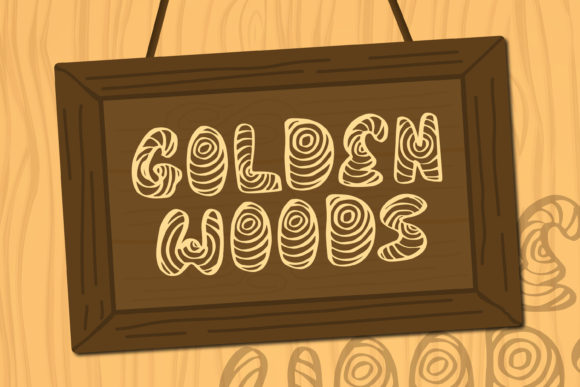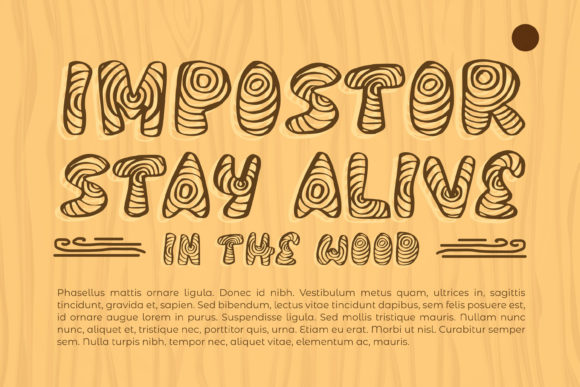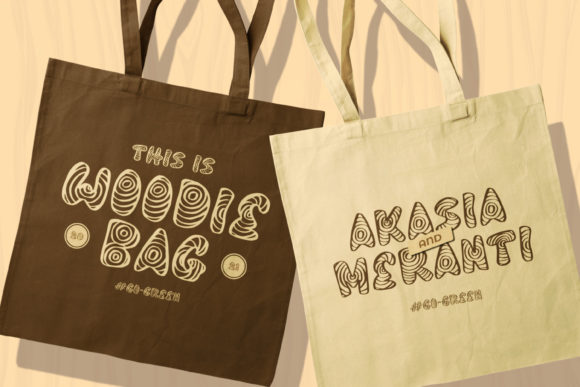
Introduction to In the Woods Font
In the Woods is a cool and uniquely display font.
Whether you use it for cartoon related designs, children games or just any creation that requires a lovely touch, this font will be an amazing choice .